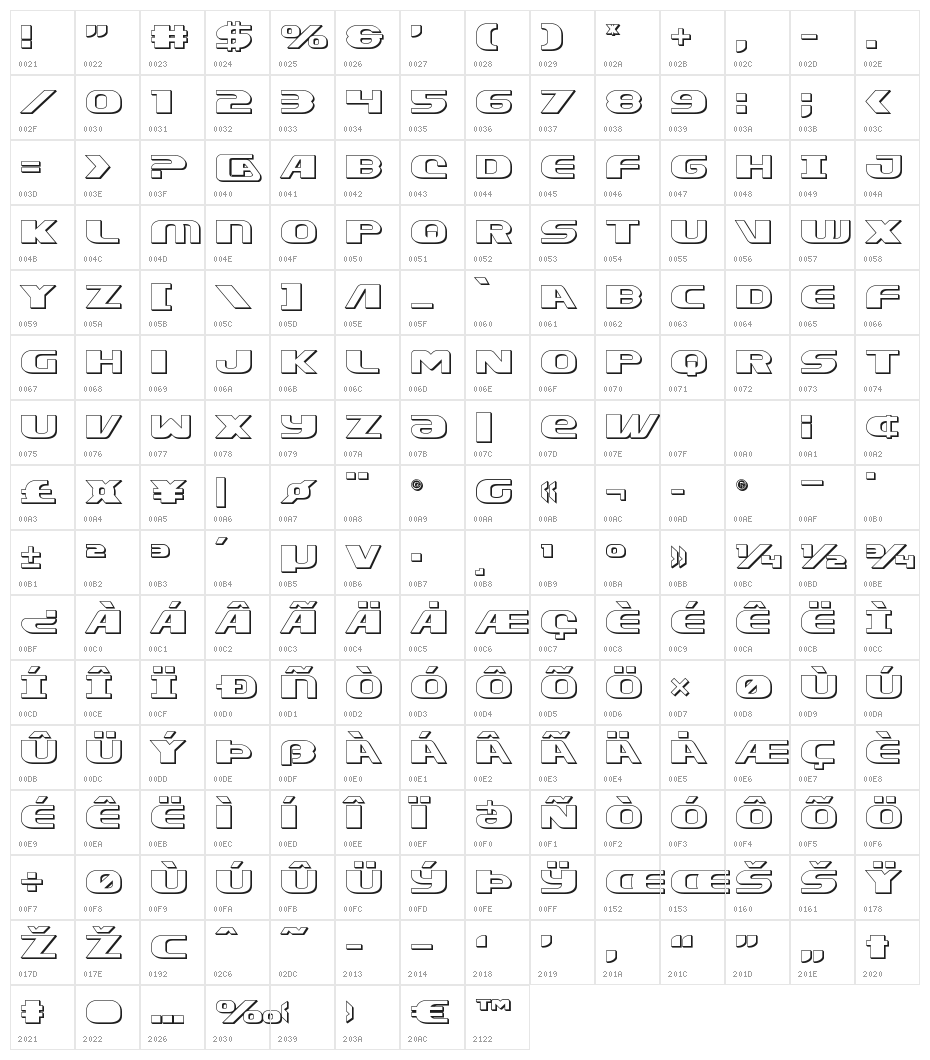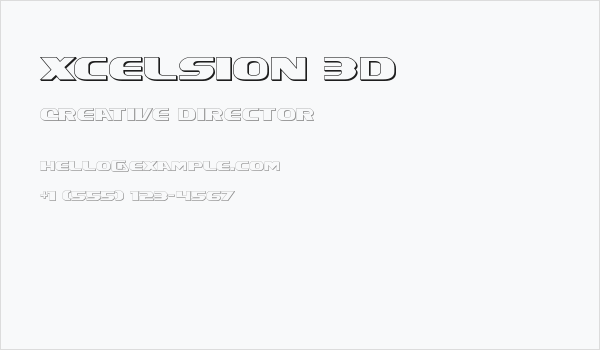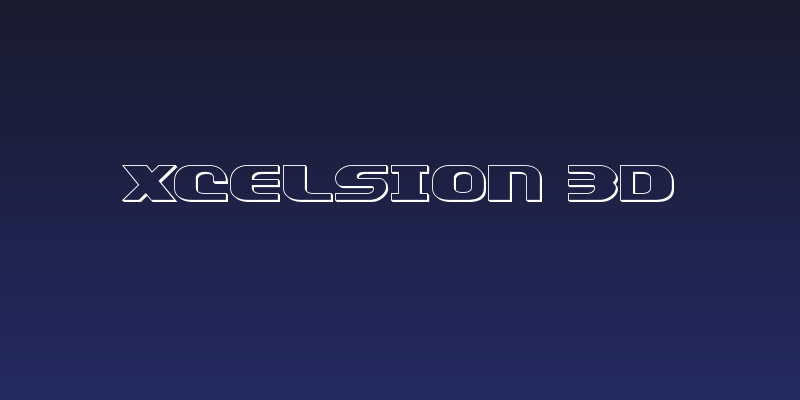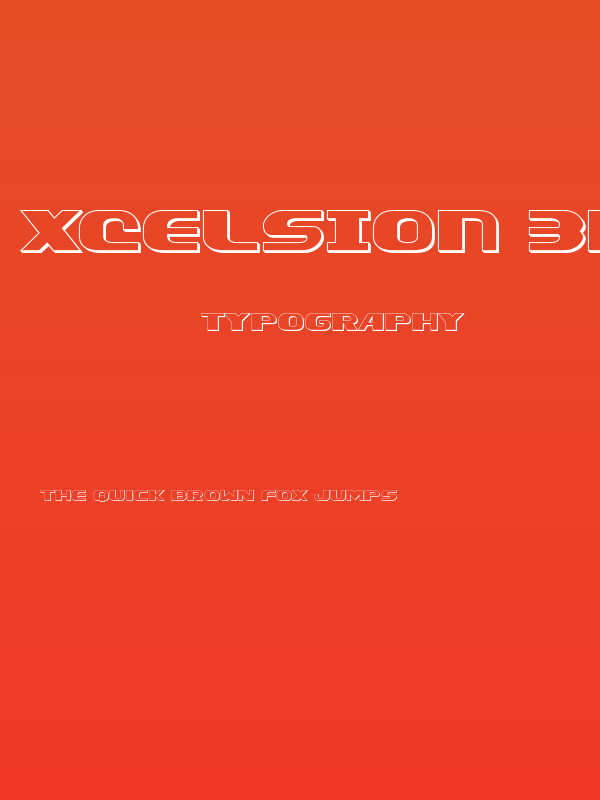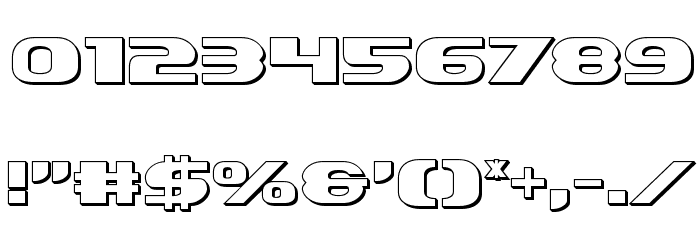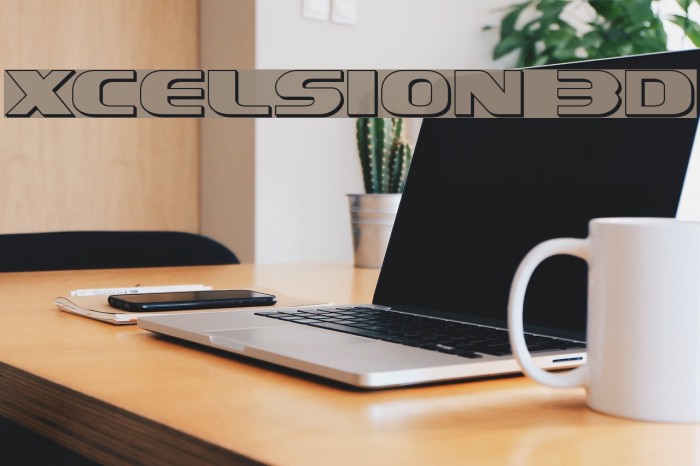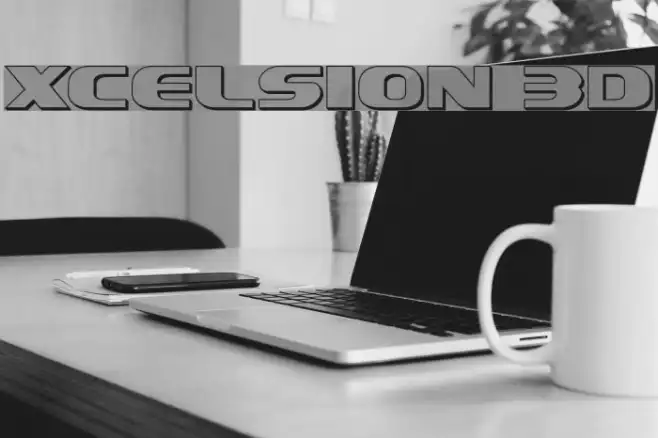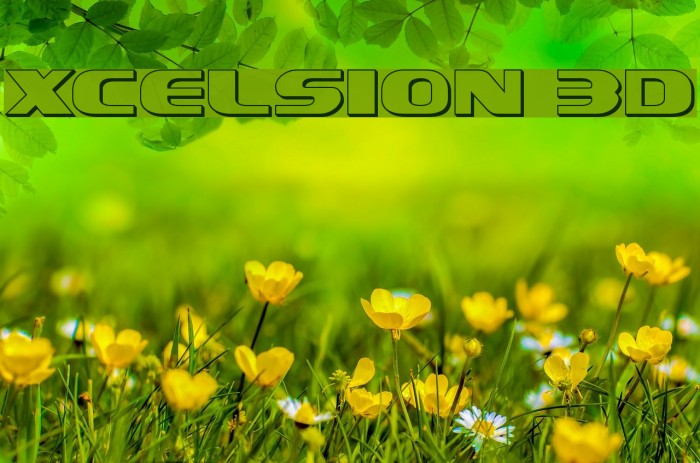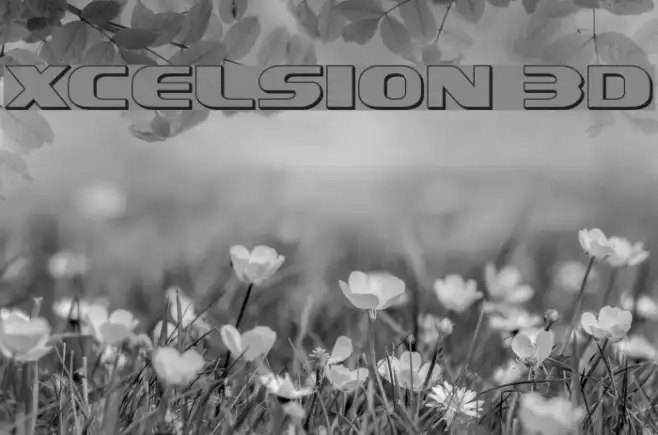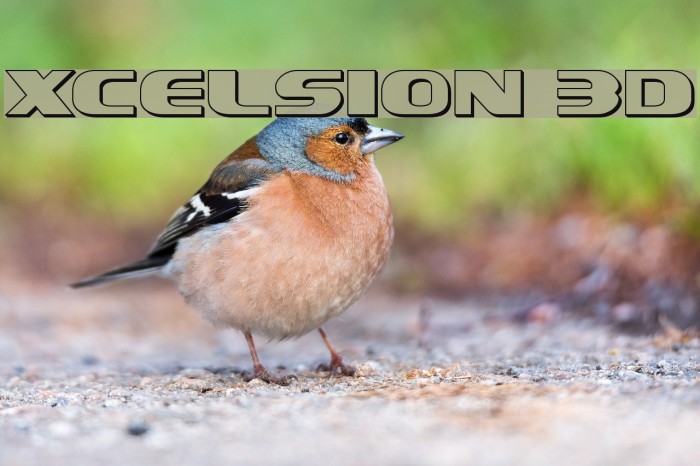
Xcelsion 3D Font
Xcelsion 3D Description
This font features a bold, three-dimensional appearance with a futuristic and geometric style. The characters are outlined, giving them a hollow look that enhances the 3D effect. Each letter and number is constructed with sharp angles and clean lines, creating a sense of depth and modernity. The uppercase and lowercase letters maintain a consistent design, while the numerals and special characters complement the overall aesthetic. This font is ideal for projects that require a striking and contemporary look, such as technology-related designs or modern branding.
XCELSION-3D UPPERCASE
XCELSION-3D LOWERCASE
XCELSION-3D OTHER CHARS
| Proposed Projects | Ideal for technology branding, modern posters, and futuristic design projects. |